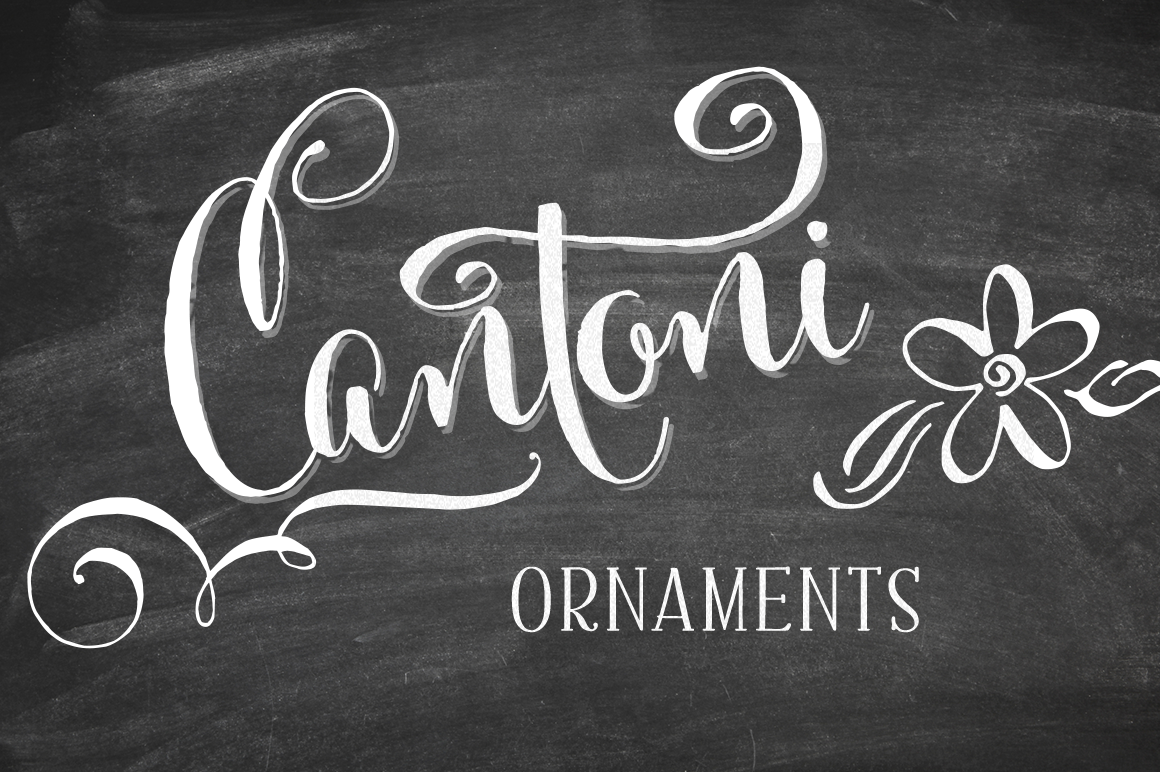
Cantoni Ornaments Font
Cantoni Ornaments contain a variety of 90 different hand lettered illustrations that can add greatly to your designs. Click here to see the keyboard map showing the entire set: http://letteringartstudio.com/wp-content/uploads/2014/05/Cantoni-Ornament-Map.pdf
Named after my large Italian family, Cantoni is a font family with a unique variety of letters based on my own fluid upright style of brush lettering, that reminds me of every family I know. There are creative and conservative siblings, crazy in a good way cousins, affable aunts and corny joke telling uncles who somehow come together and form one cohesive unit. The party starts. The fun begins. And soon they're all laughing and dancing up and down the baseline.